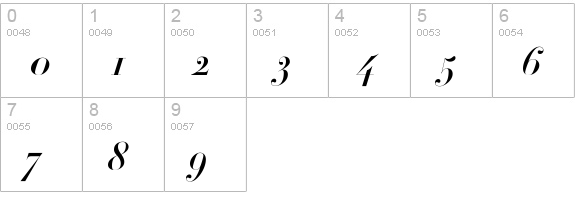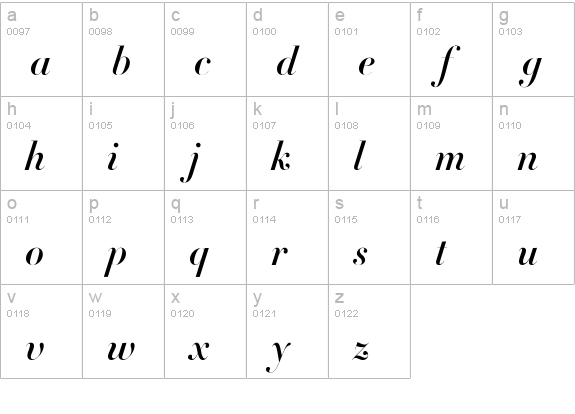
Didot-HTF-B64-Bold-Ital is a strong, high-contrast variant in the Didot typeface family \xE2\x80\x94 well suited to headlines, attention-grabbing titles, and strong calls-to-action.
Didot-HTF-B64-Bold-Ital is a stunning and elegant font that exudes sophistication and class. With its bold and italicized style, this font is perfect for creating eye-catching headings, titles, and other design elements that demand attention. The sharp serifs and clean lines of Didot-HTF-B64-Bold-Ital add a touch of refinement to any project, making it a popular choice among designers and creatives. The best part is that Didot-HTF-B64-Bold-Ital is available for free download at FontsMarket.com. This means that you can easily access this beautiful font and incorporate it into your designs without any cost. Whether you're working on a branding project, poster design, or any other creative endeavor, Didot-HTF-B64-Bold-Ital is sure to elevate your work and make a lasting impression. Download it today and add a touch of elegance to your projects!